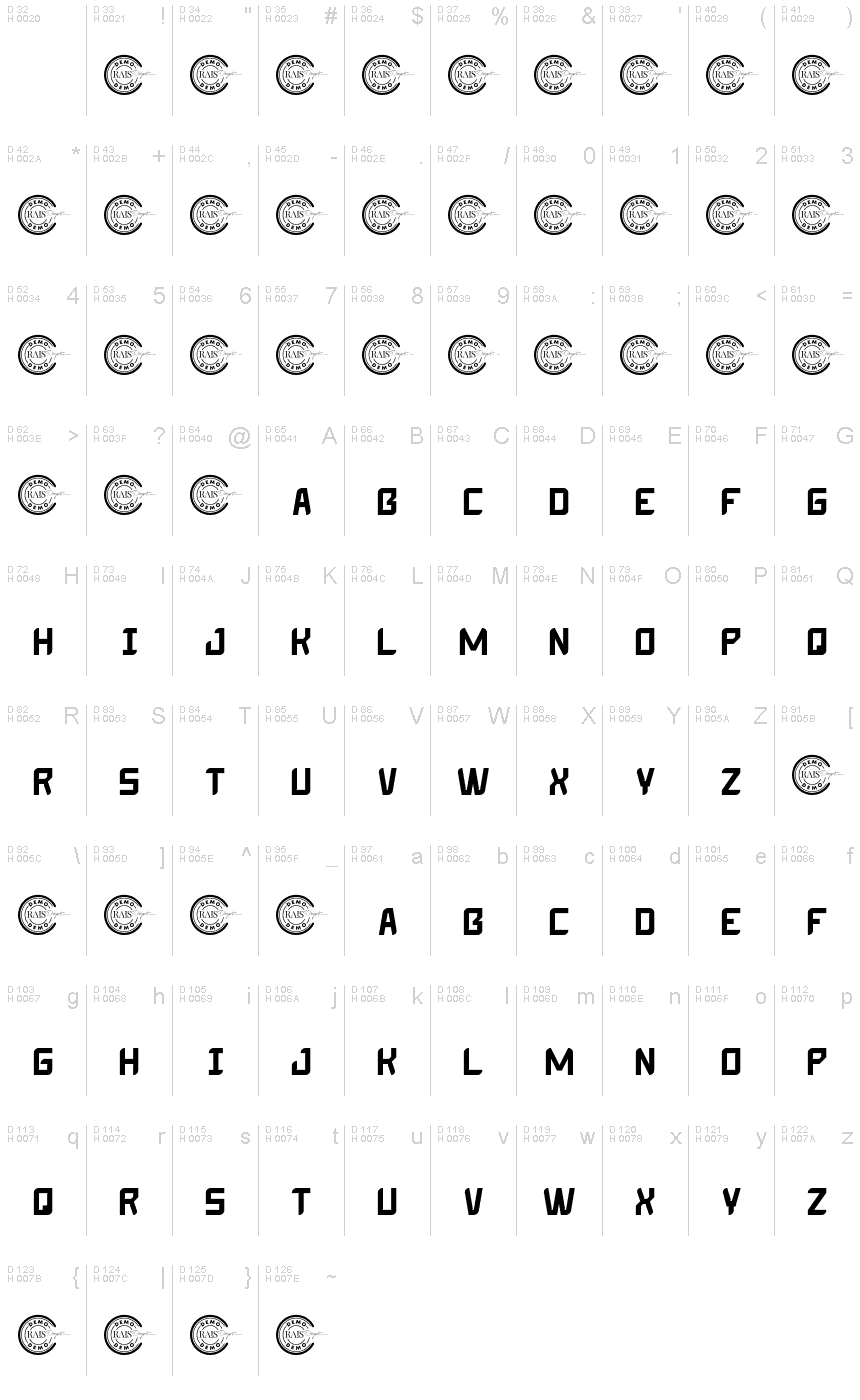
Hotfast Demo Bold
Hotfast Bold is the perfect display font for futuristic, high-tech projects. Its bold weight and techno style make it a standout choice for branding, advertising, and web design. The Hotfast family, designed by RaisProject, includes a range of widths and weights to suit a variety of needs. Use Hotfast Semi-Bold for subheadings or Hotfast Light for body text. With its clean lines and modern feel, Hotfast is also ideal for gaming or app interfaces. Give your project an edge with Hotfast Bold – the bold display font that means business.